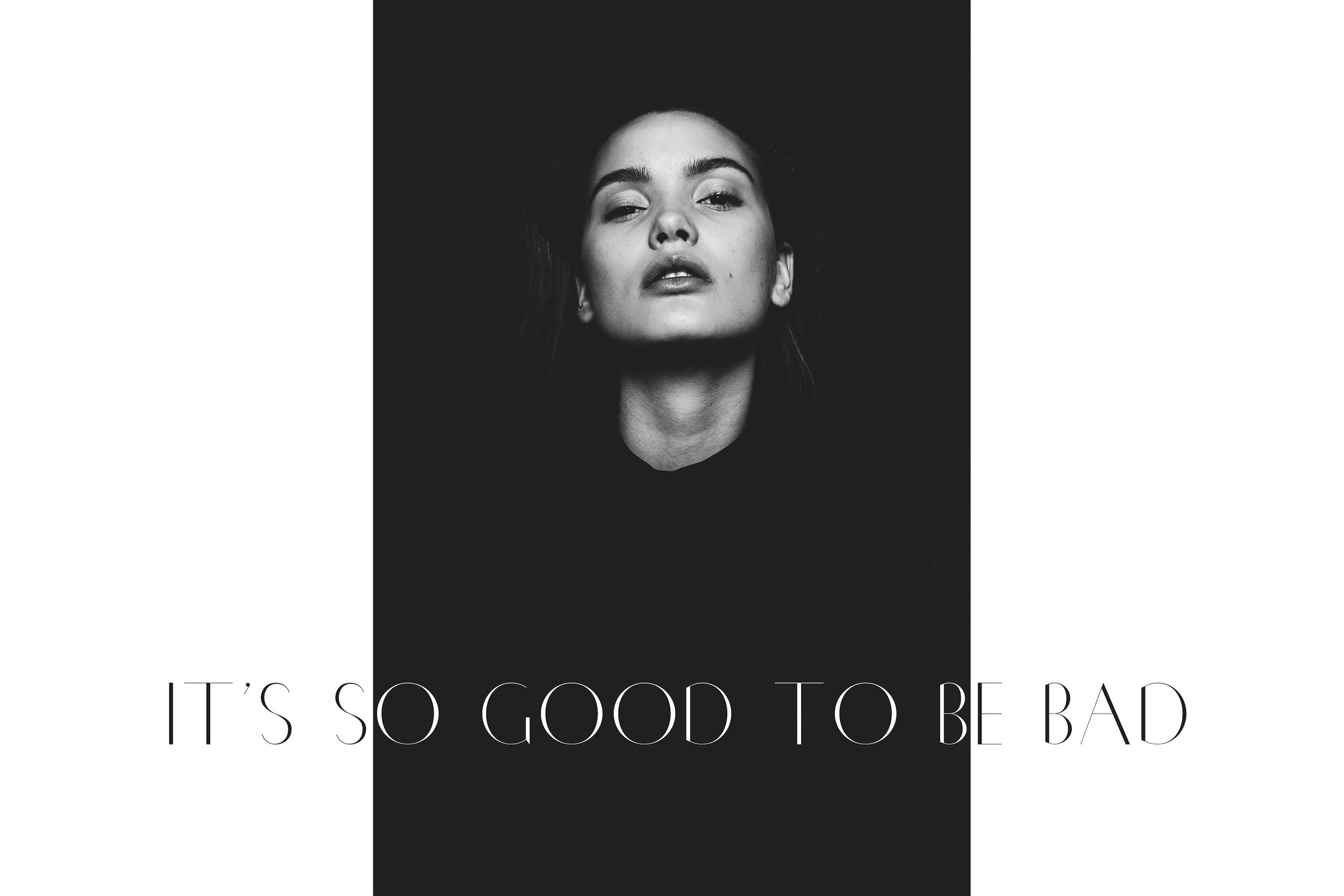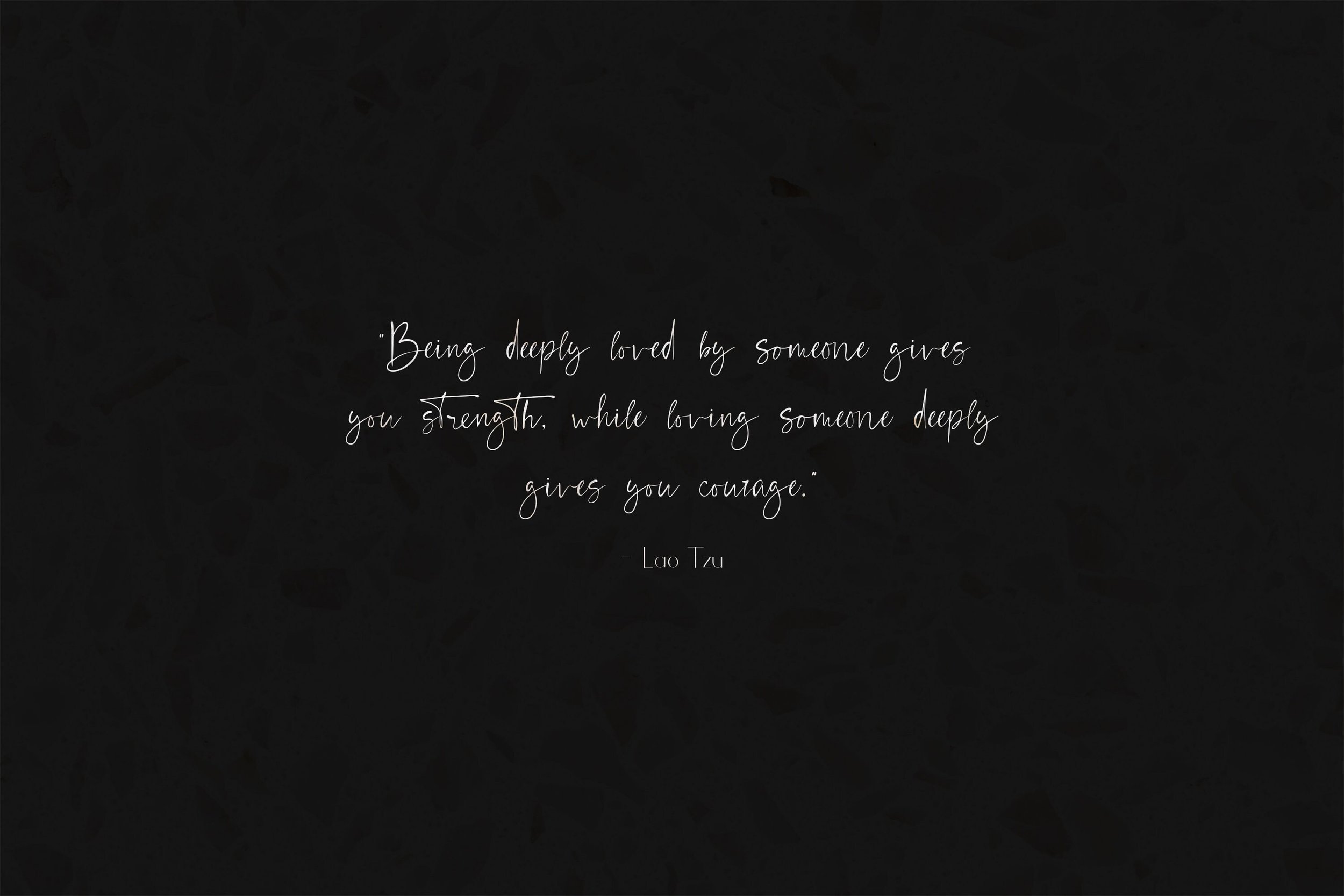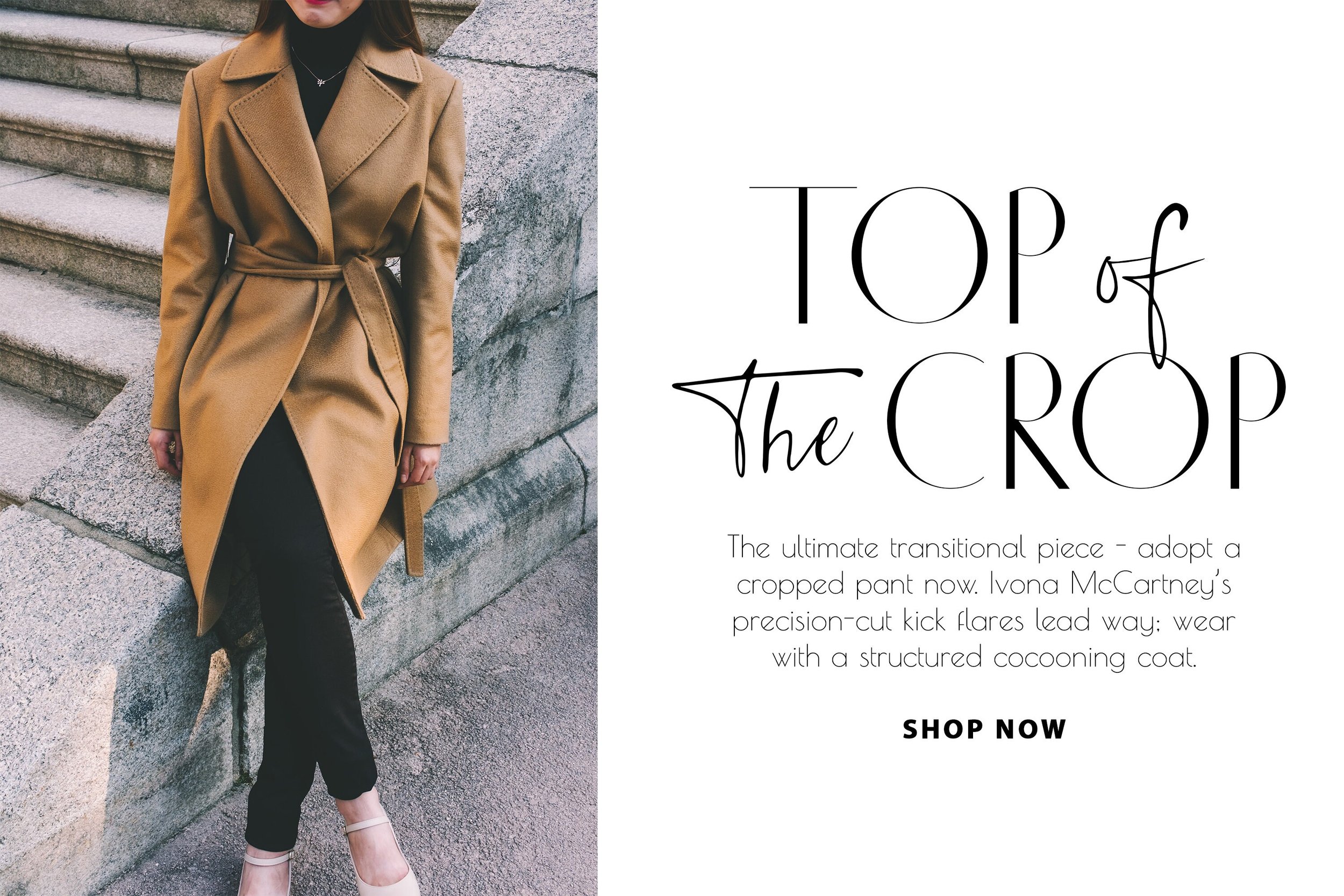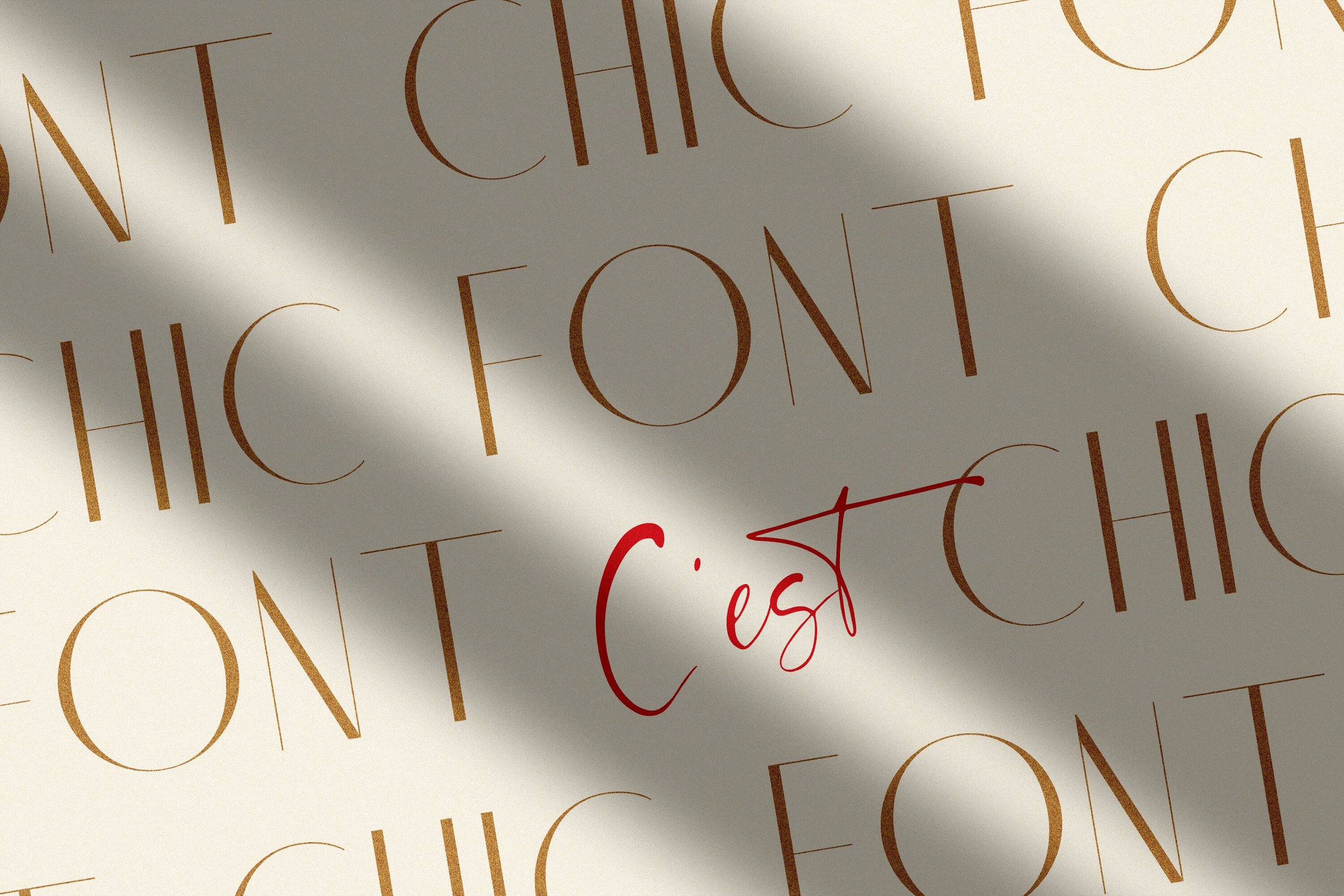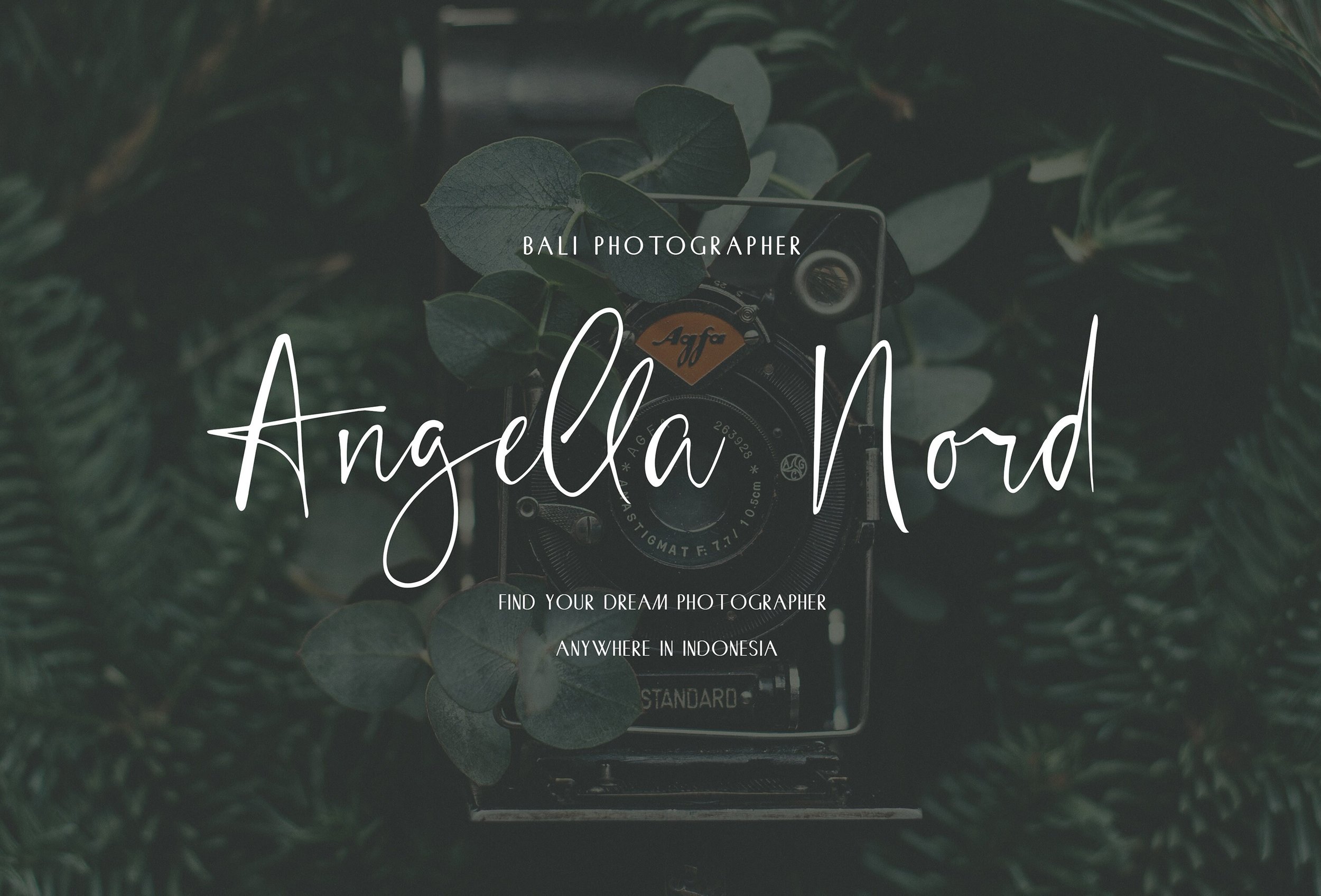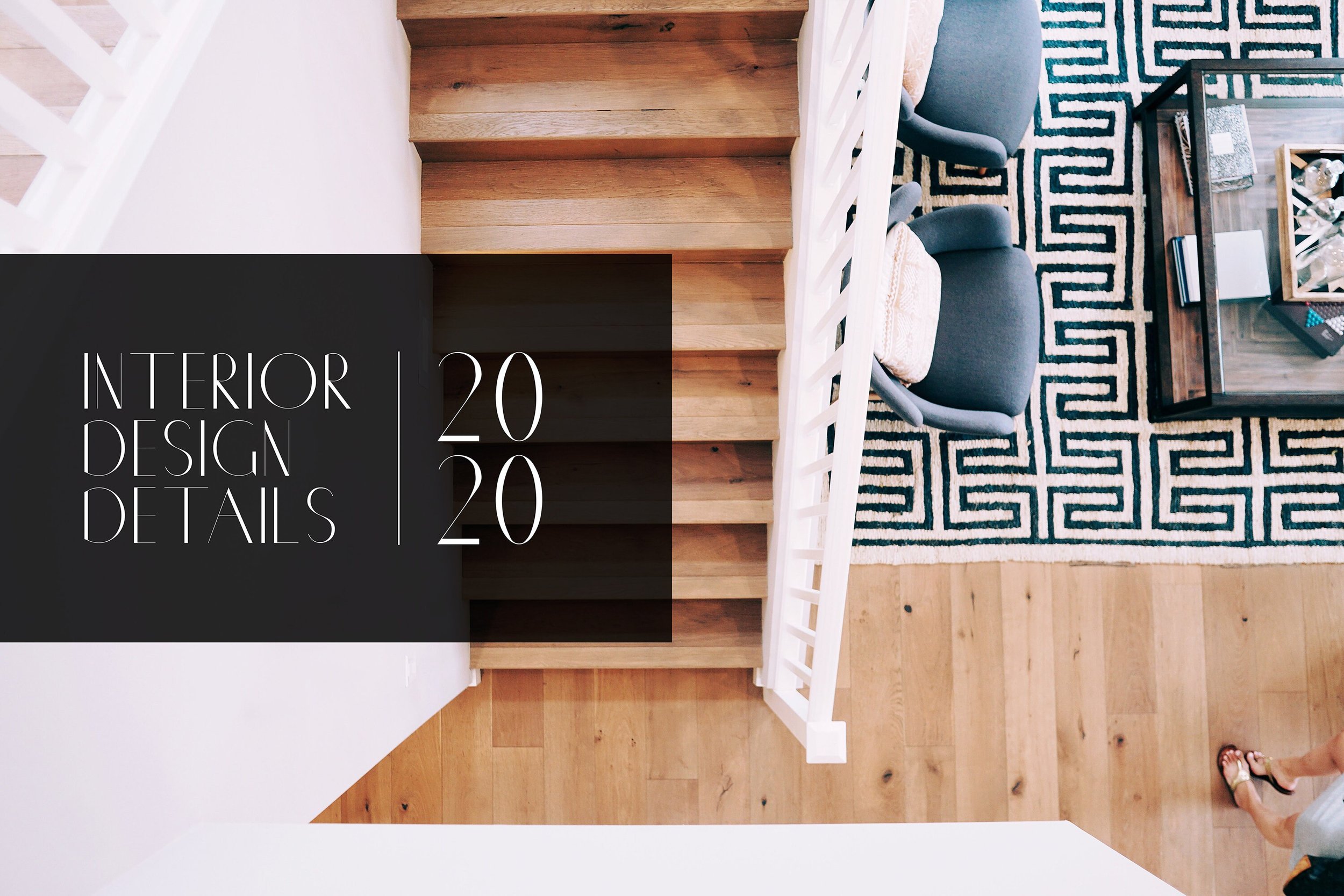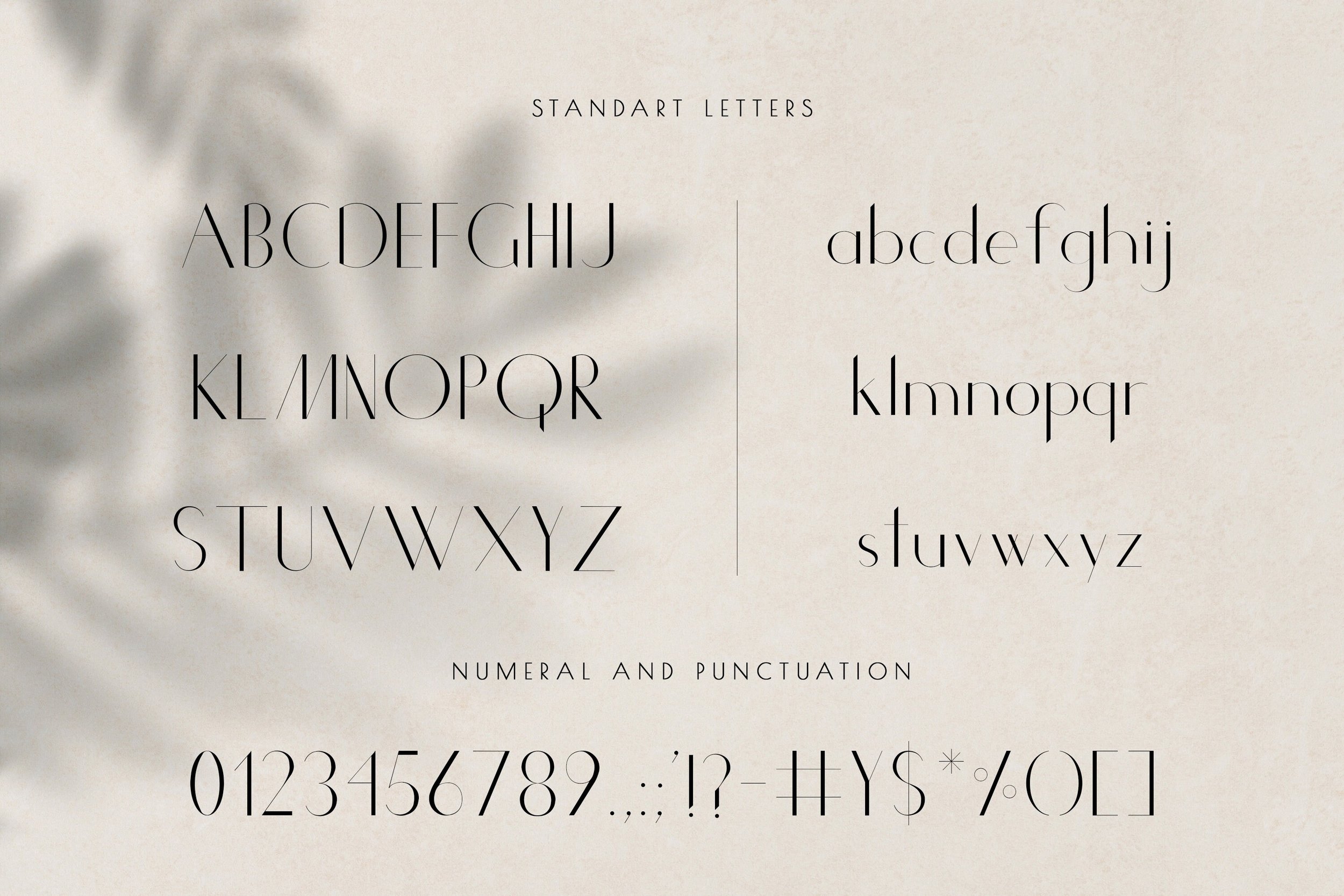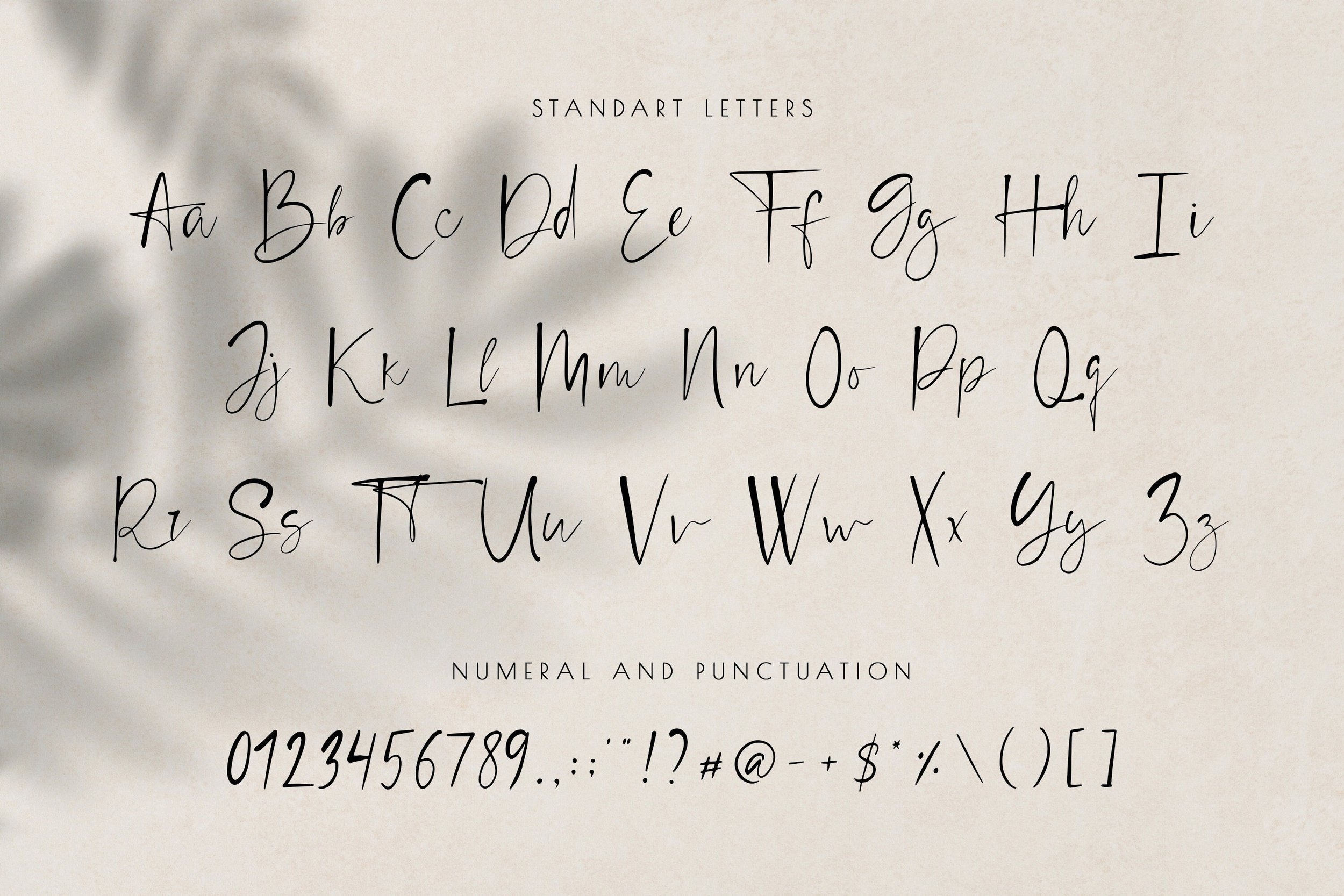
C'est Chic - Luxury Font Duo
C'est Chic is a super stylish font duo. Chic Sans Serif is an elegant & classy typeface with French charm. Chic Script is a casual hand-drawn font with ligatures ready to add unique look and bloom on your design.